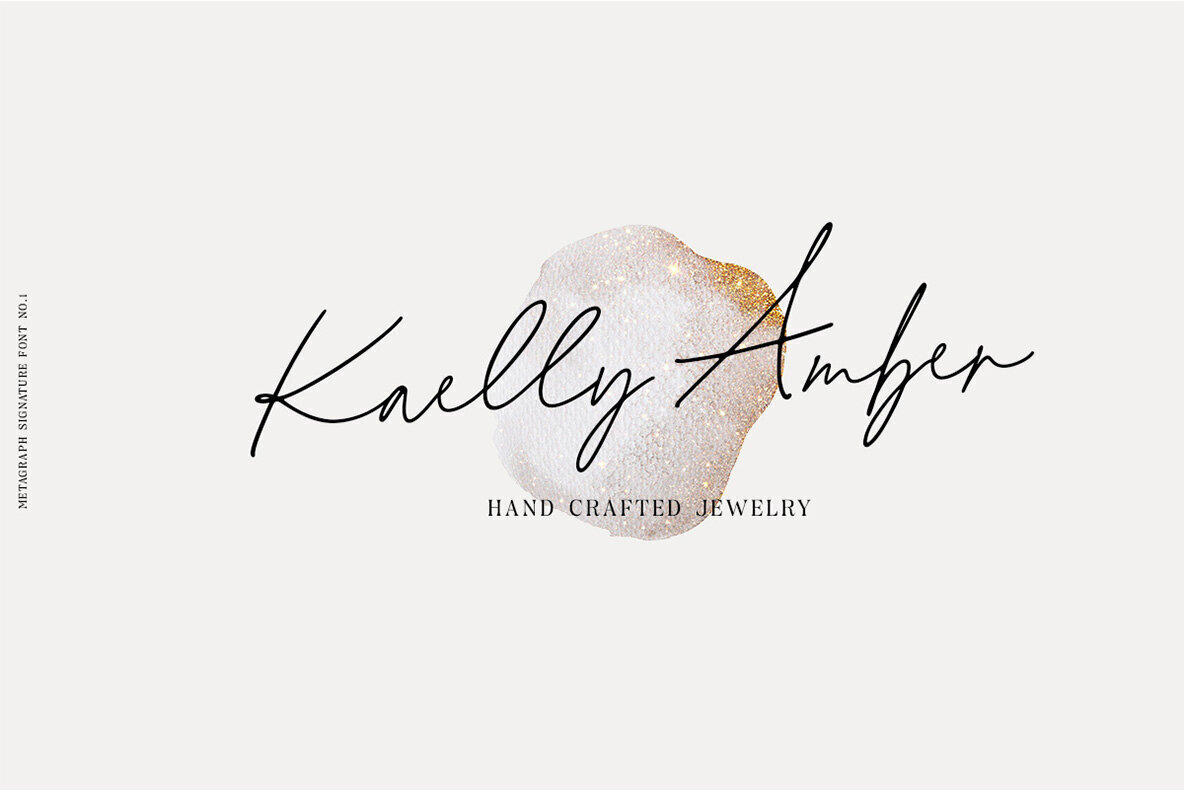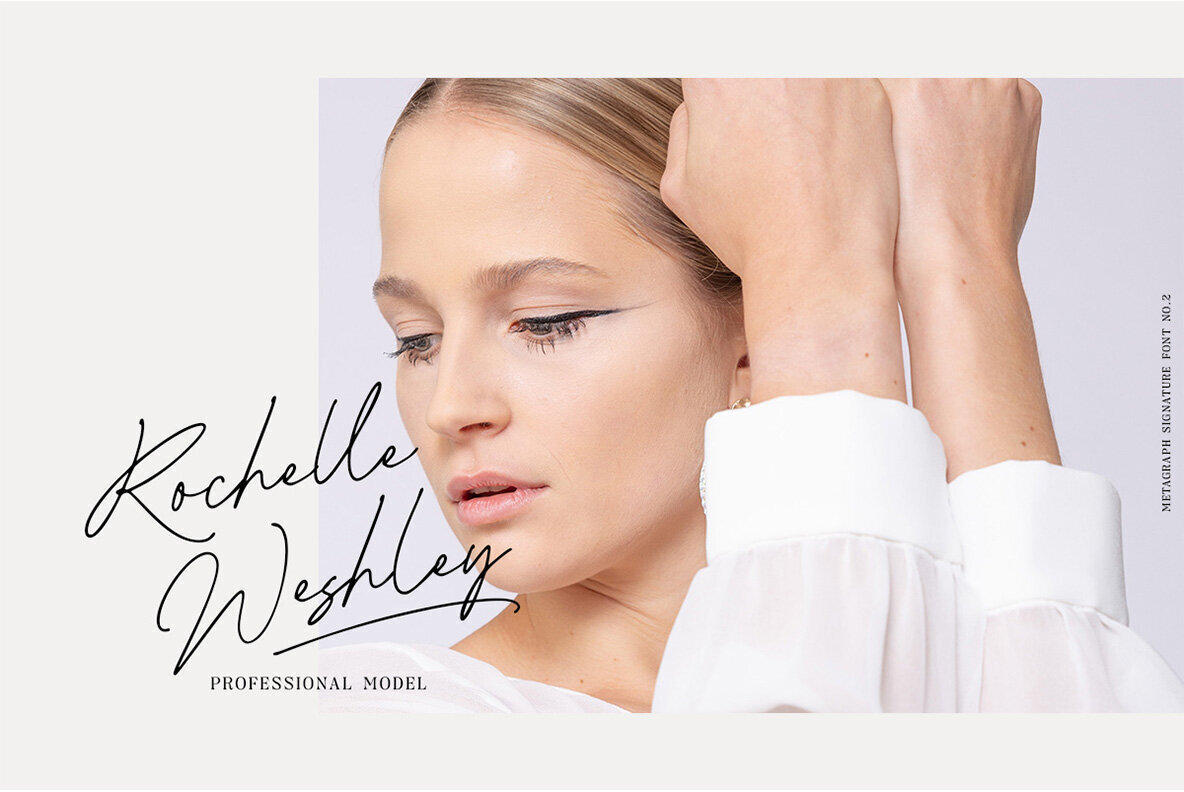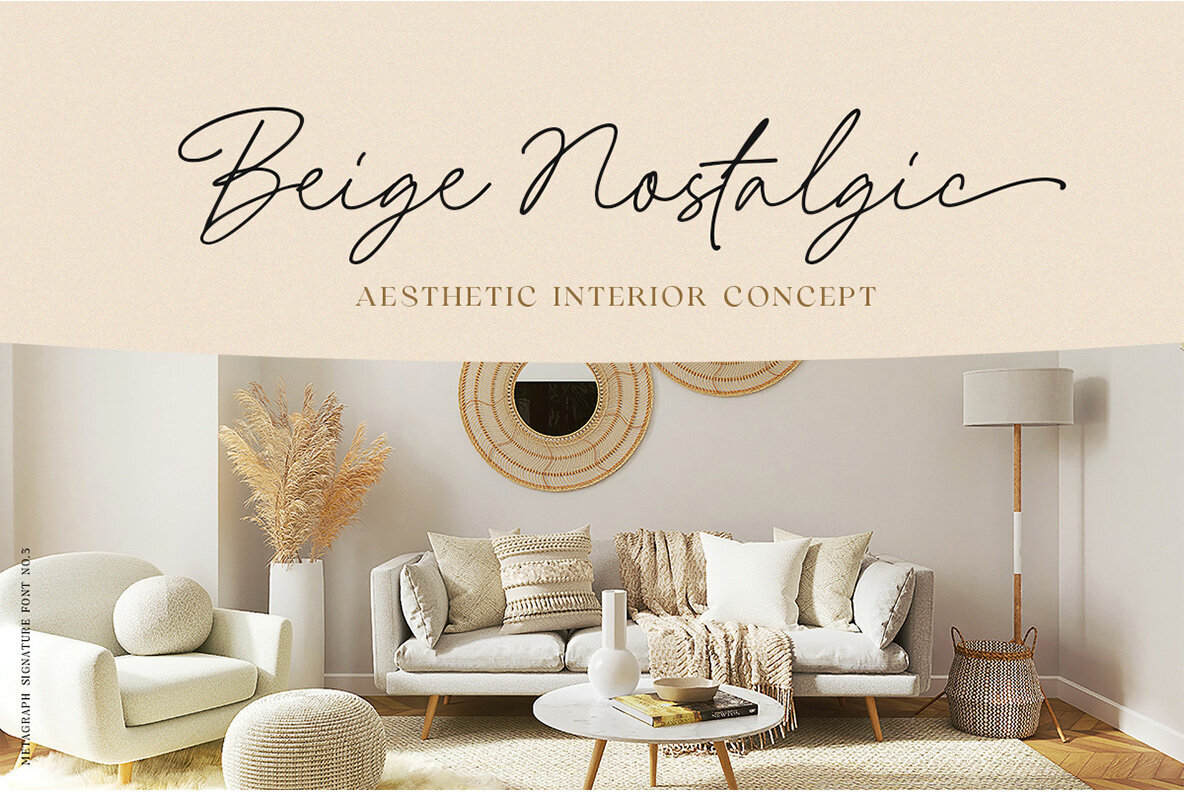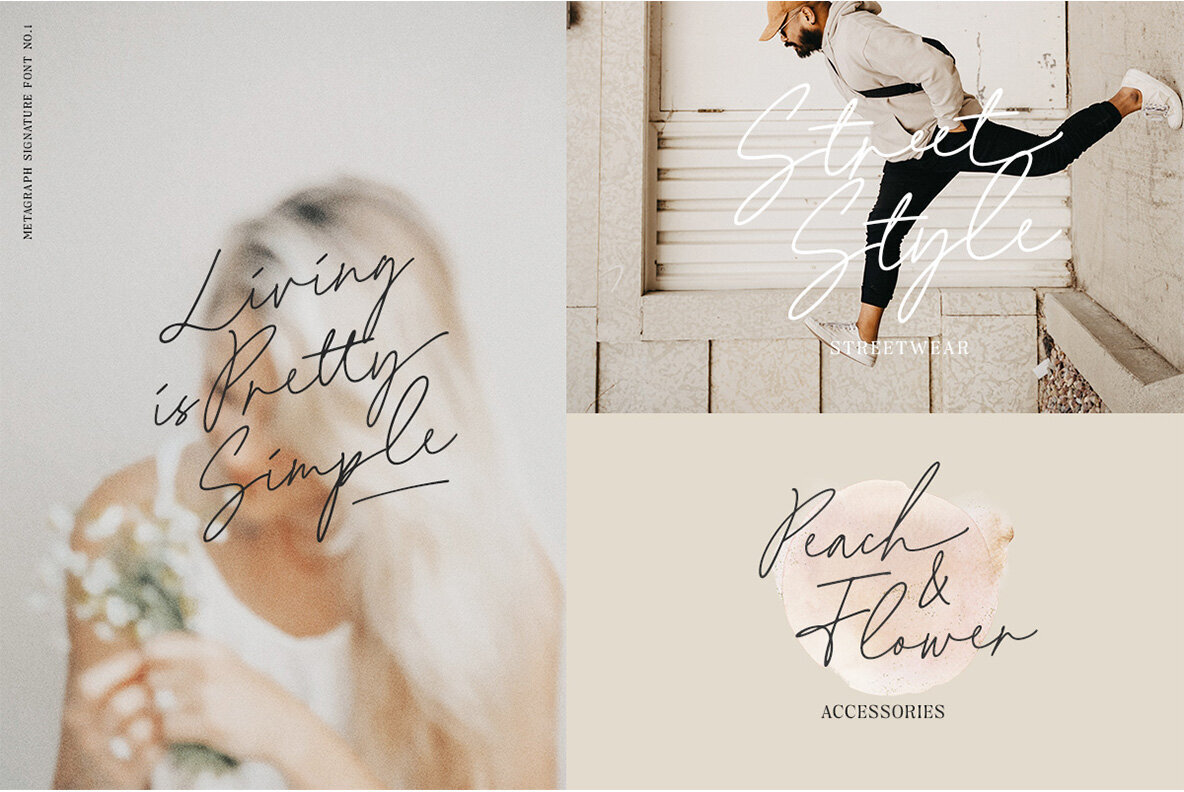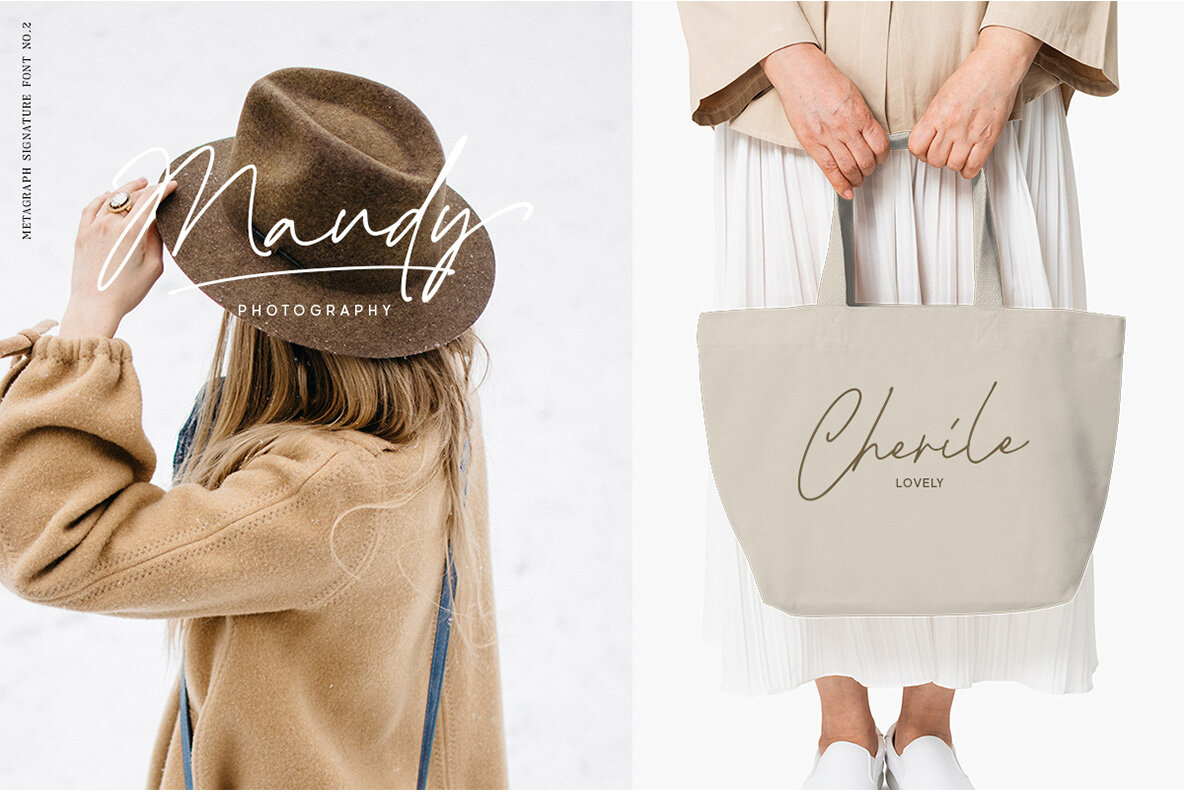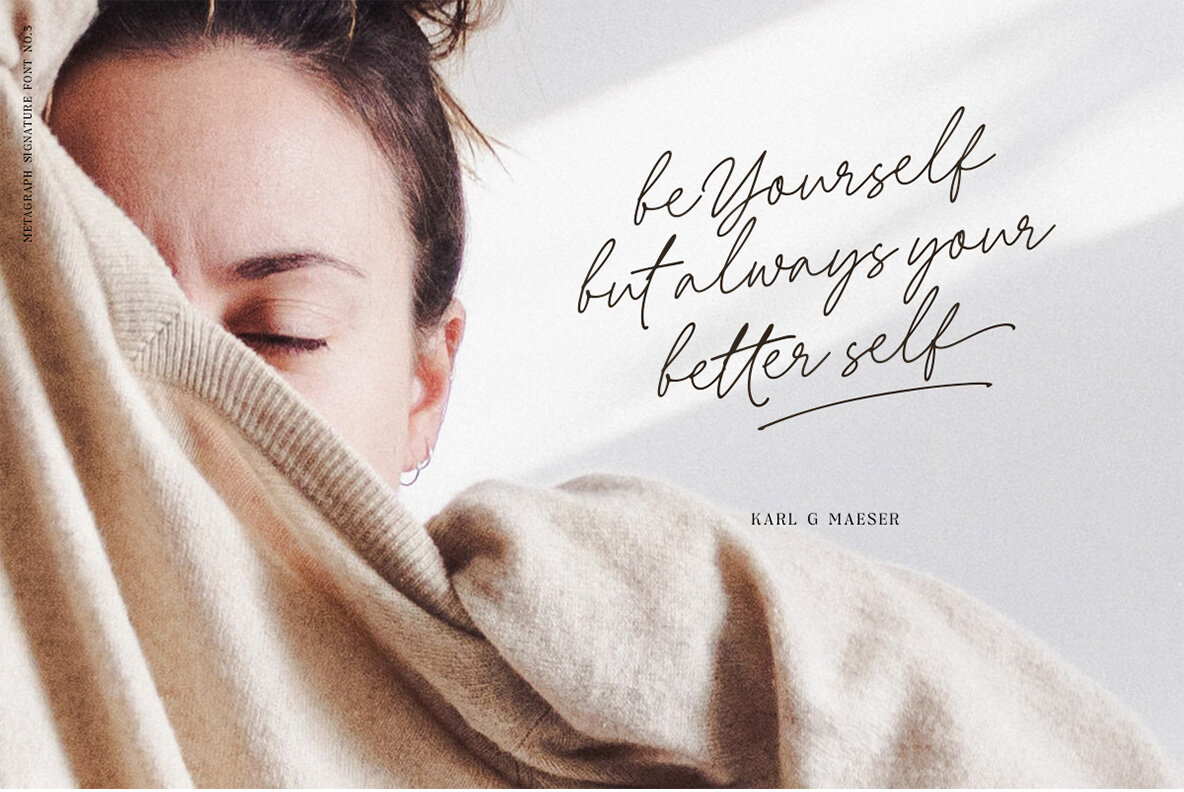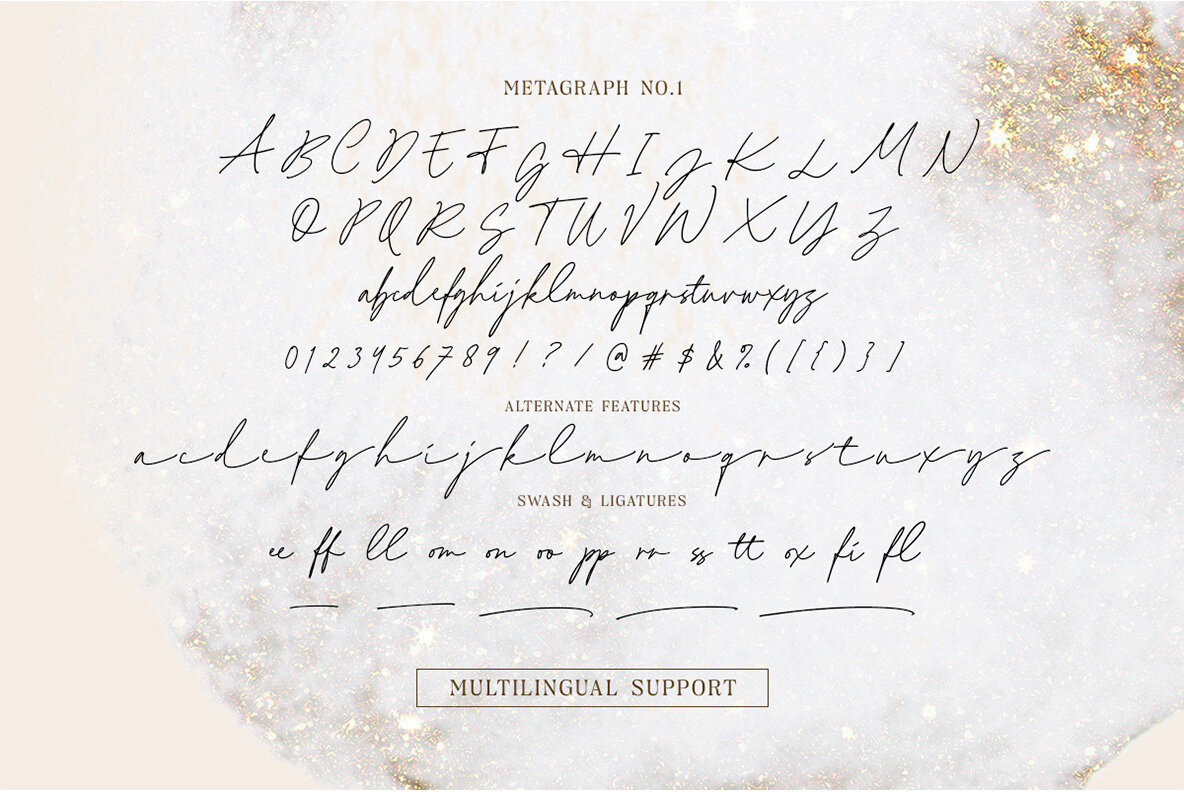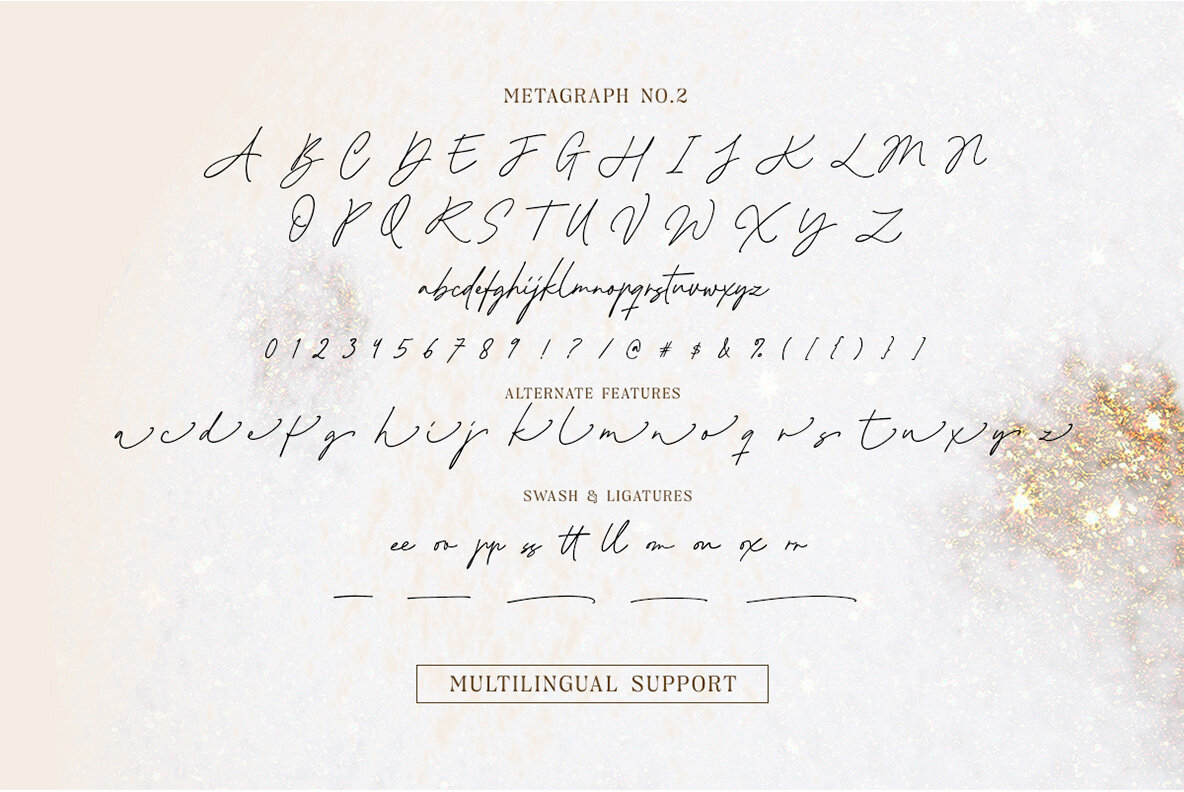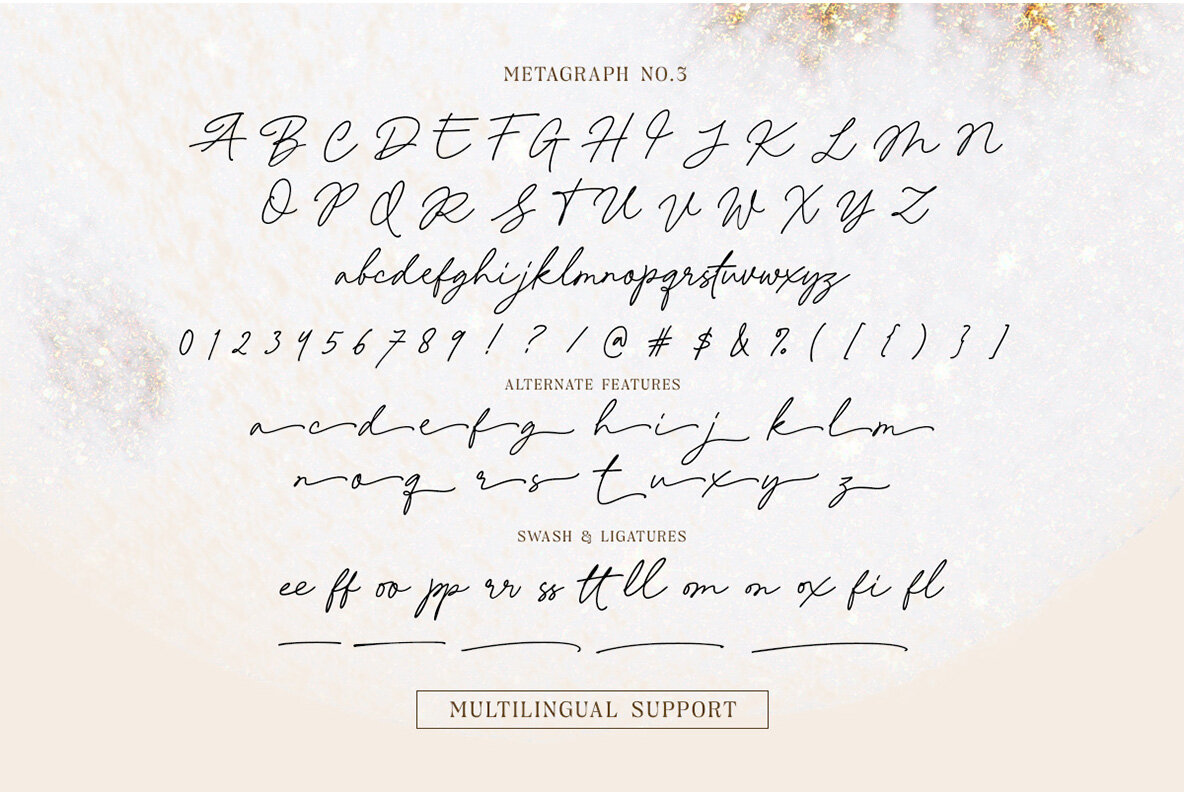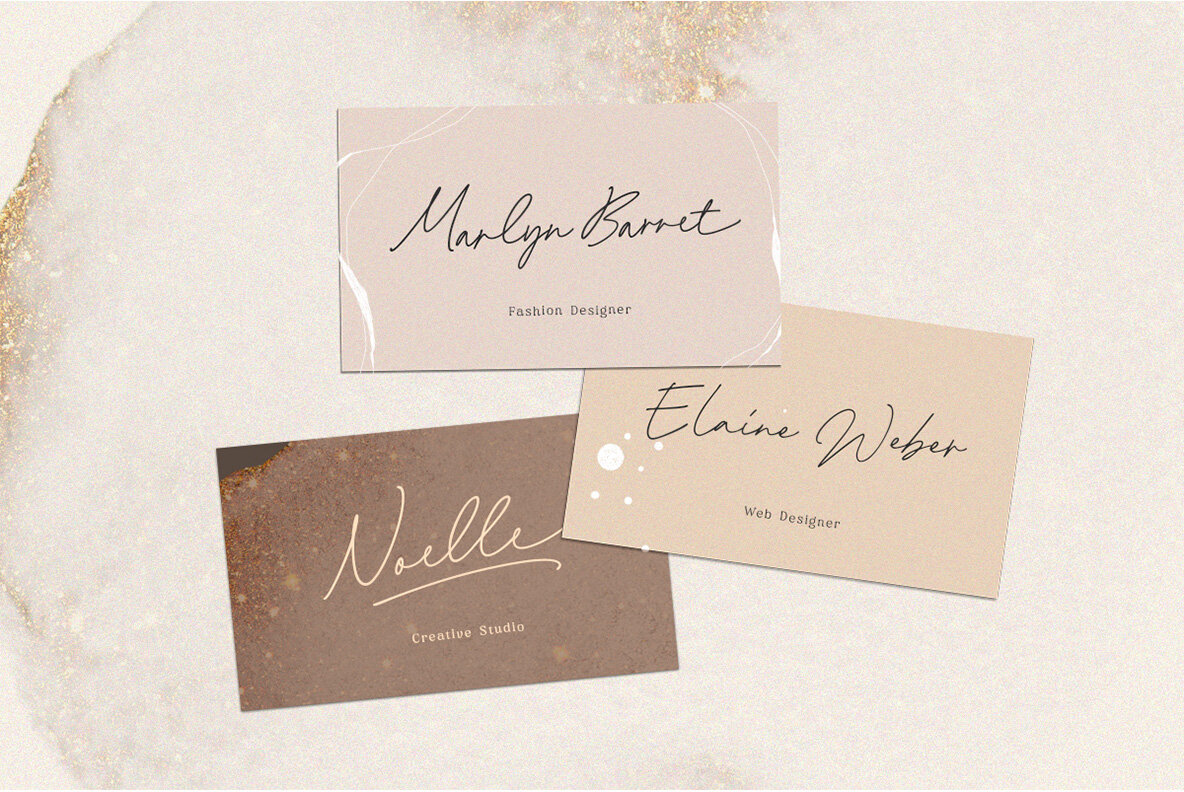
Metagraph Font
Metagraph by Letterhend Studio is a captivating signature script that brings the charm of manual handwriting to your creative projects. Crafted to excel in formal applications, this typeface suits a range of uses such as logos, invitations, labels, and stationery. Whether designing for print or digital formats, Metagraph ensures a stylish expression that complements magazines, greeting cards, packaging, and more.Metagraph: Elegant Script for Distinctive Branding